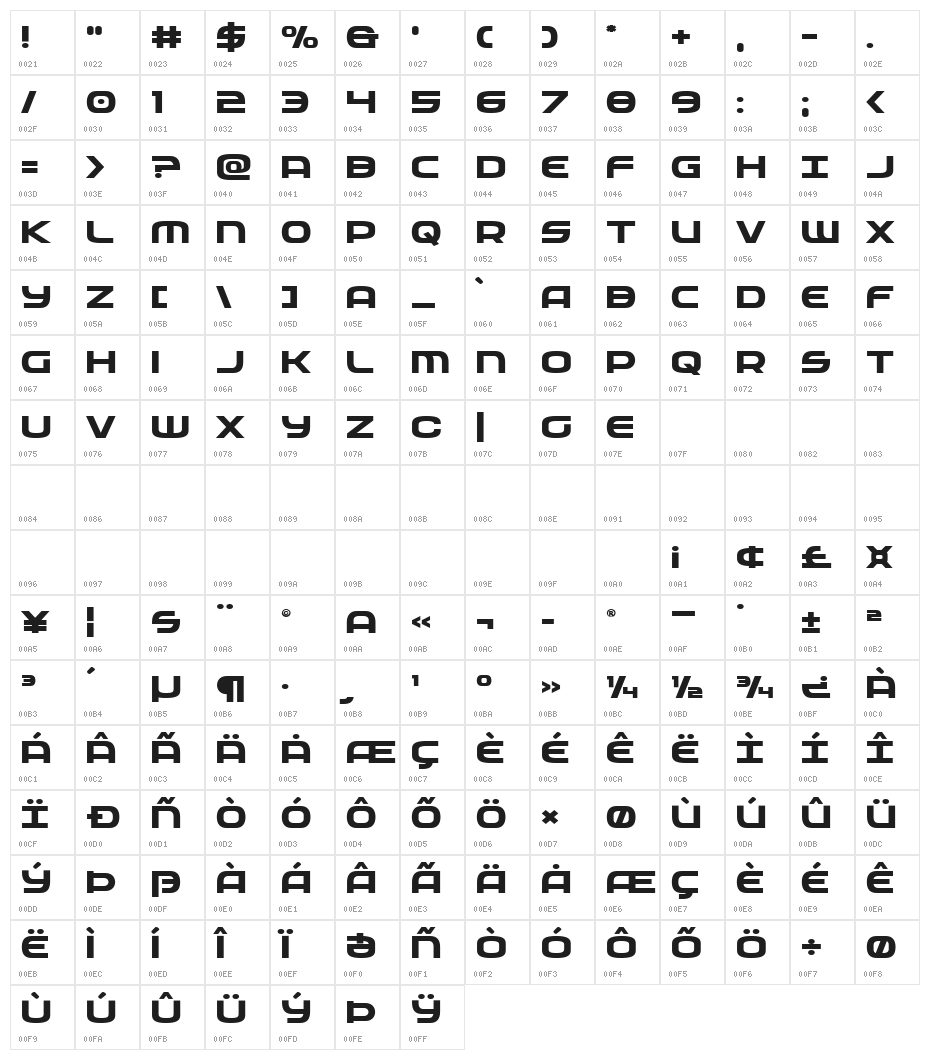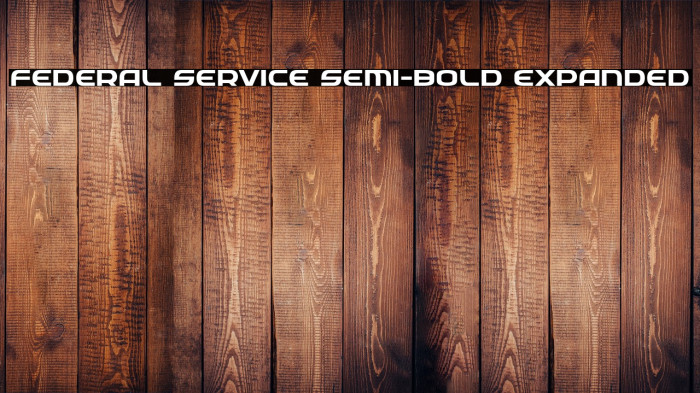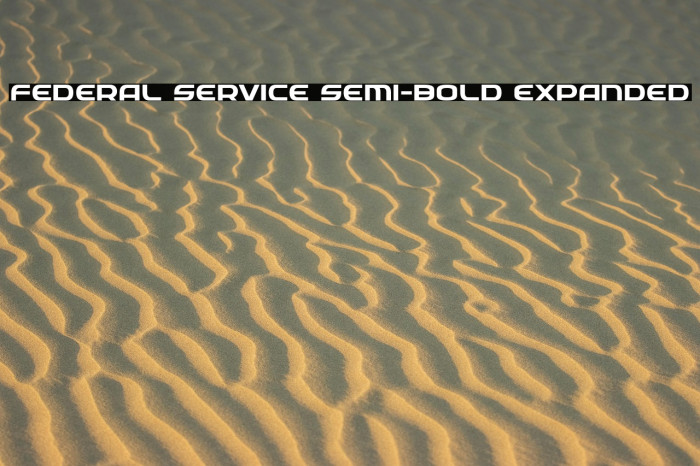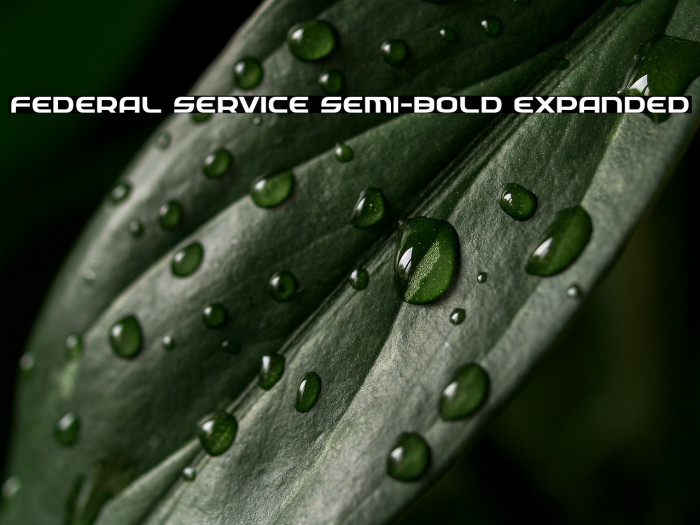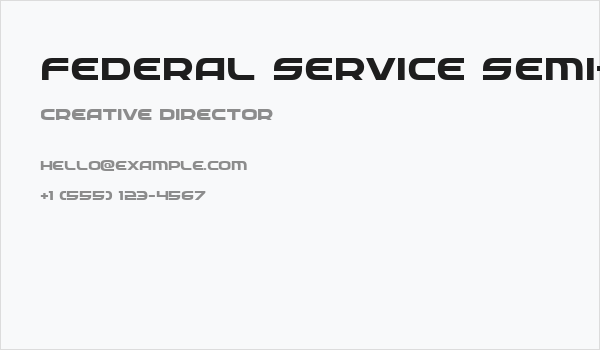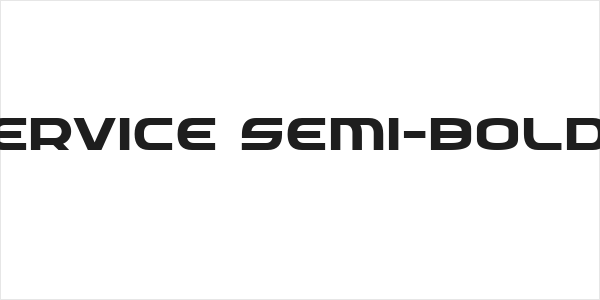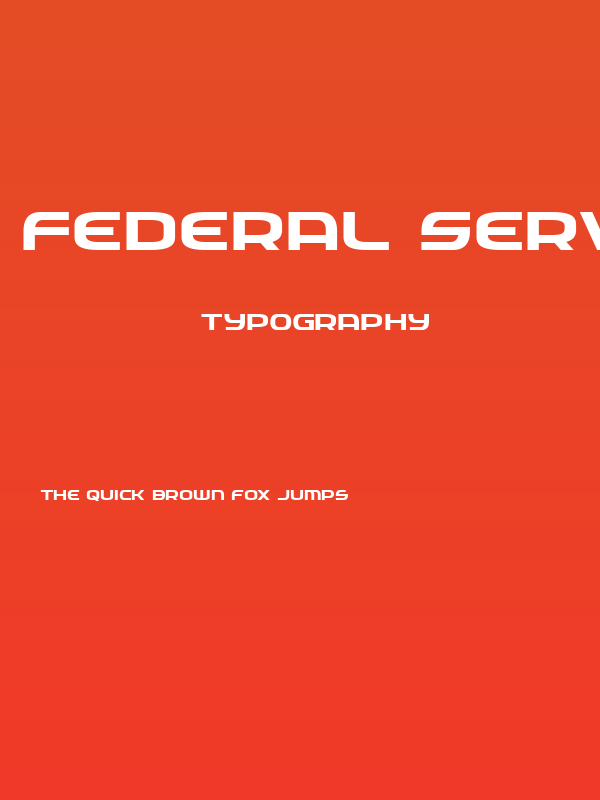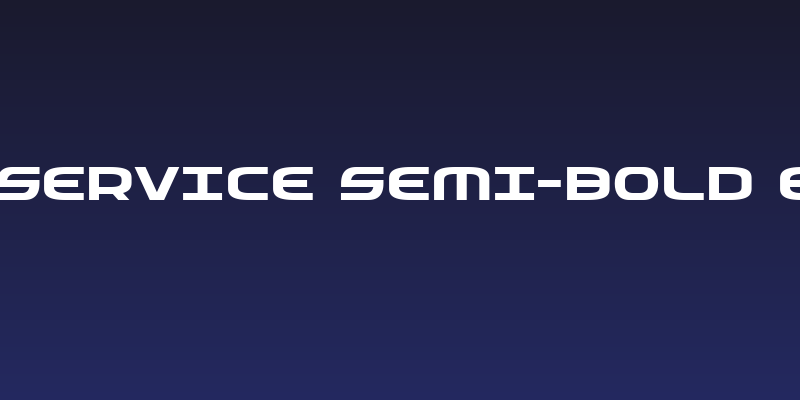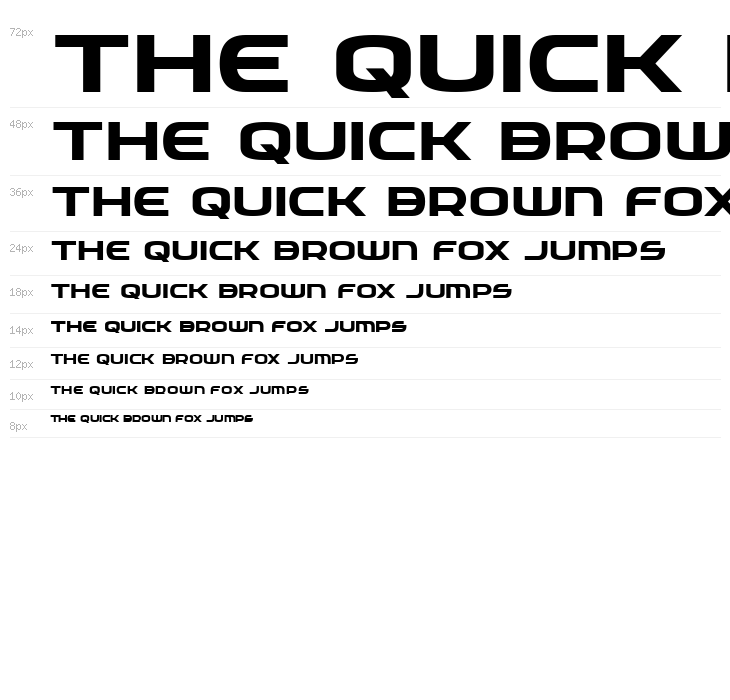
Federal Service Semi-Bold Expanded Font
Federal Service Semi-Bold Expanded Description
This font features a bold and expanded style with a modern and geometric aesthetic. The characters are designed with a uniform stroke width, giving it a clean and structured appearance. The uppercase letters are particularly striking, with a strong presence that commands attention. The lowercase letters maintain the same boldness, ensuring consistency across different text sizes. The numerals are clear and easily distinguishable, making them suitable for various applications. Special characters are included, adding versatility to the font's usage. Overall, this font is ideal for projects that require a contemporary and impactful look.